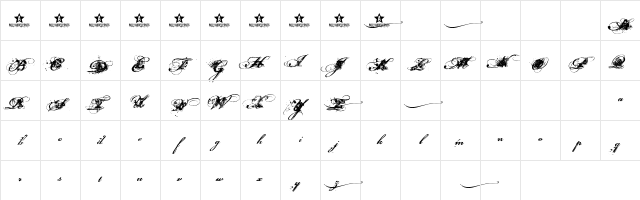
DIRTY CLASSIC Copyright (c) 2009 by Billy Argel. All rights reserved. wears its vintage influences proudly, with letterforms that recall mid-century signage, classic packaging, and nostalgia-driven design.
Font Pairing: Combine DIRTY CLASSIC Copyright (c) 2009 by Billy Argel. All rights reserved. with a simple slab or neutral sans - period-accurate companions reinforce the vintage feel without competing for attention.
Pro Tip: Lean into DIRTY CLASSIC Copyright (c) 2009 by Billy Argel. All rights reserved.'s period character by pairing it with aged paper textures, muted colour palettes, and vintage illustration styles.